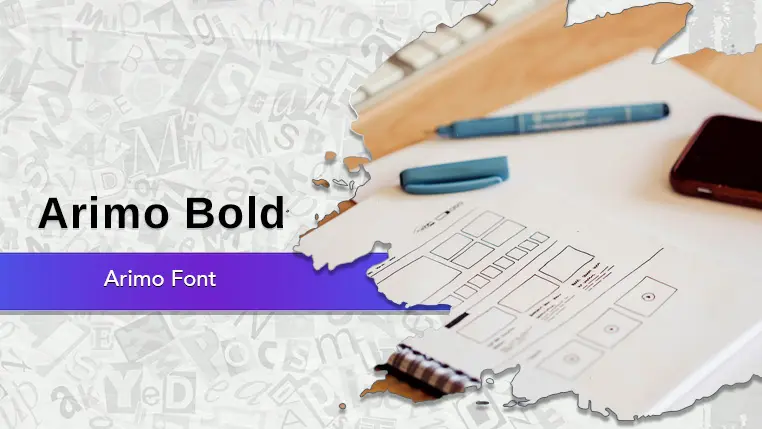
The Arimo font family may be ideal for you if you enjoy working on an artistic design project. The lively, expressive look of this typeface, which was created by Steve Matteson, makes it ideal for Professional and corporate use. Arimo's clean and legible design makes it an excellent choice for long blocks of text in websites, documents, and digital interfaces, where readability is crucial. Because it was specifically designed with on-screen reading in mind, it works well for app interfaces, dashboards, and websites. Since it's a popular open-source font, it's a great choice for developers who need to ensure document portability and consistent rendering across different operating systems and platforms. and other light-hearted visual projects.
Bold, Bold Italic, Medium, Medium Italic, Regular, Semi Bold, Semi Bold Italic, Italic Variable, Variable are the ten primary font styles of the Arimo font family. You may build dynamic, visually appealing text layouts with the distinct flair that each style offers. With crisp, readable lines and a relaxed tone.